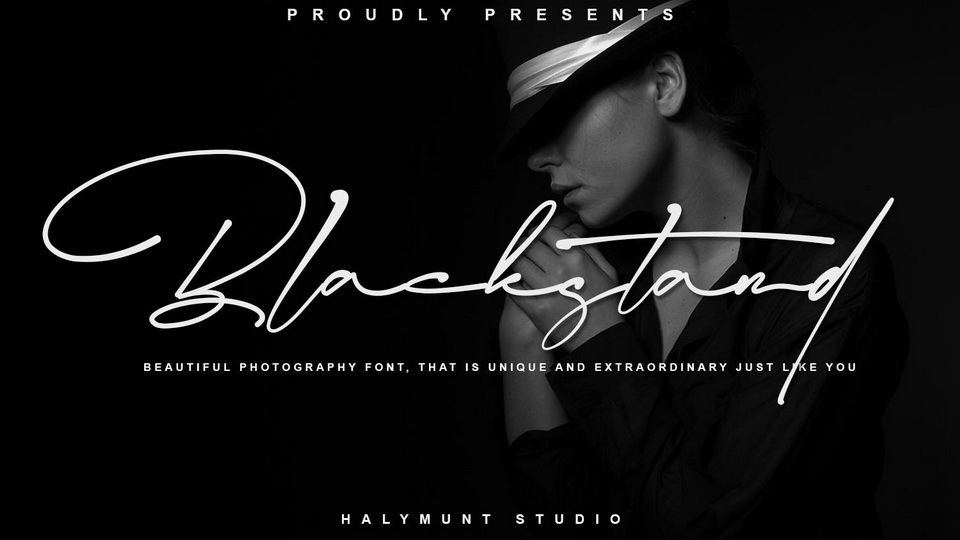
Download Blackstand font, a stylish signature typeface with a natural and dynamic flow. Blackstand is a beautiful photography watermark font, that is unique and extraordinary just like you.